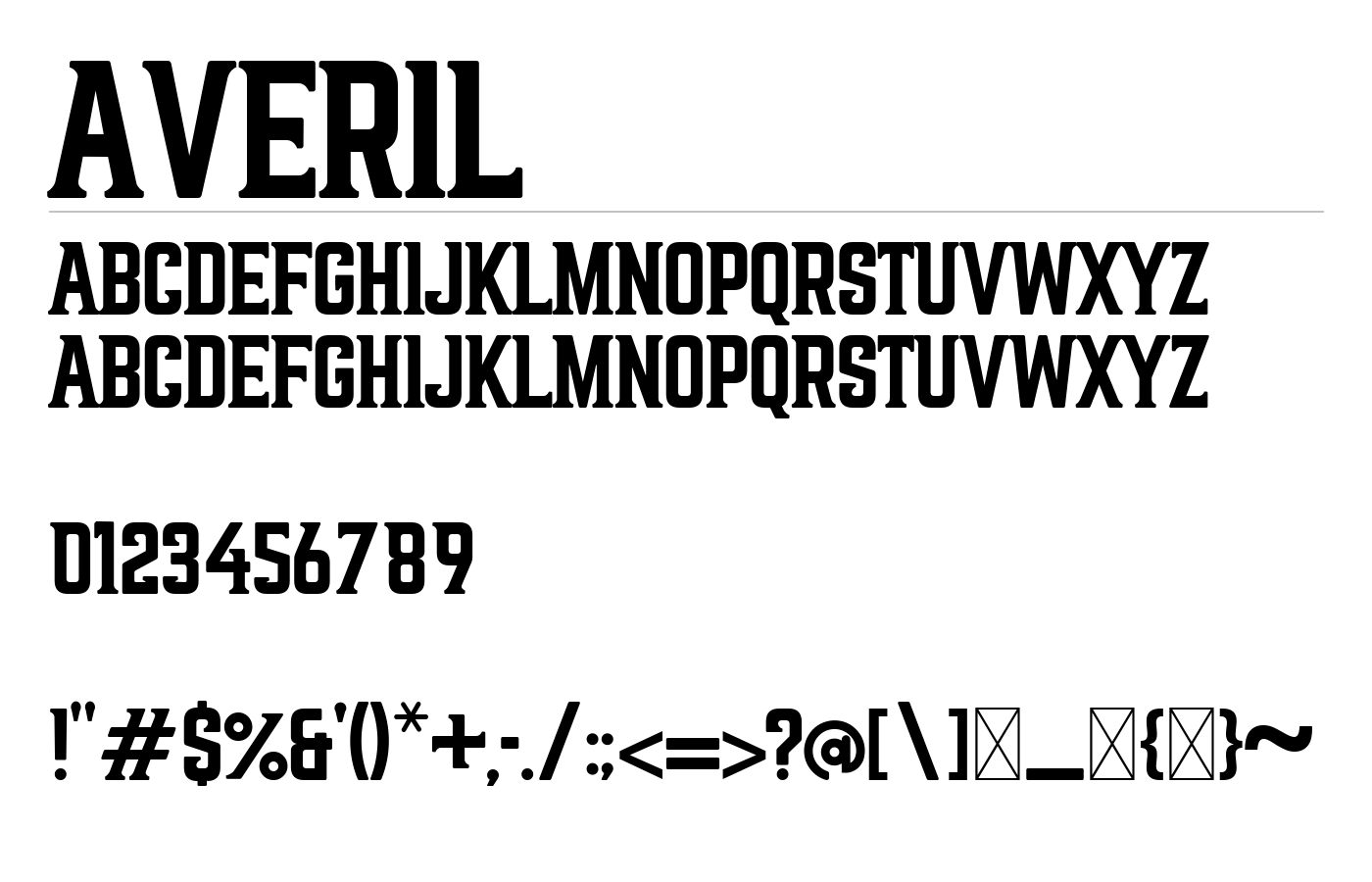
Averil is a bold, condensed slab serif font with a strong presence and vintage appeal. Its thick, blocky serifs and high contrast strokes give it a sturdy yet refined look, making it perfect for headlines, logos, and branding that require a confident and classic style. This font works well in editorial design, posters, and packaging where a bold, timeless impression is needed.
Averil Font
About Averil Font
| Font family | Averil Font |
| Designer | Manekadesign |